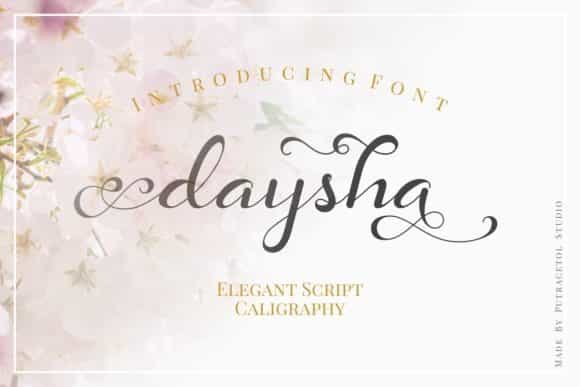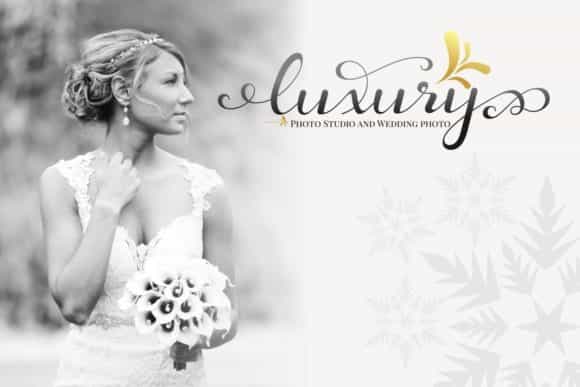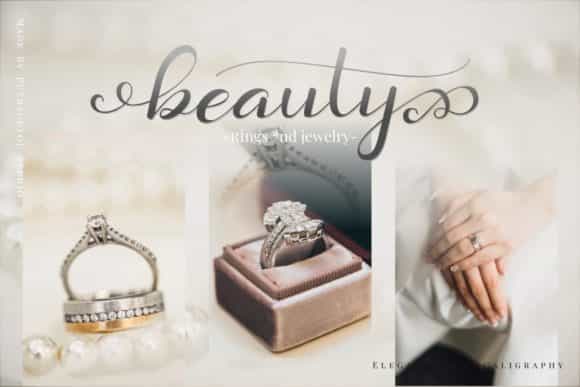
Daysha is a pretty up-to-date wedding calligraphy font. This font is feminism, stylish and at the same time unorderly. Daysha is an excellent choice for a wedding, anniversary, birthday greeting card, logo and branding project.